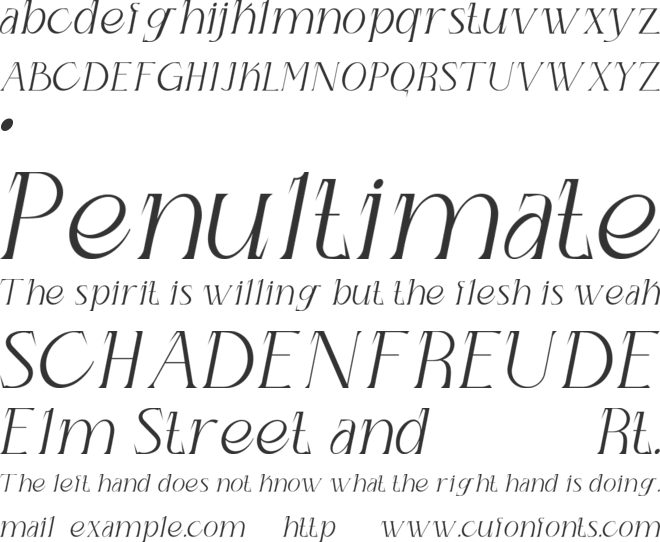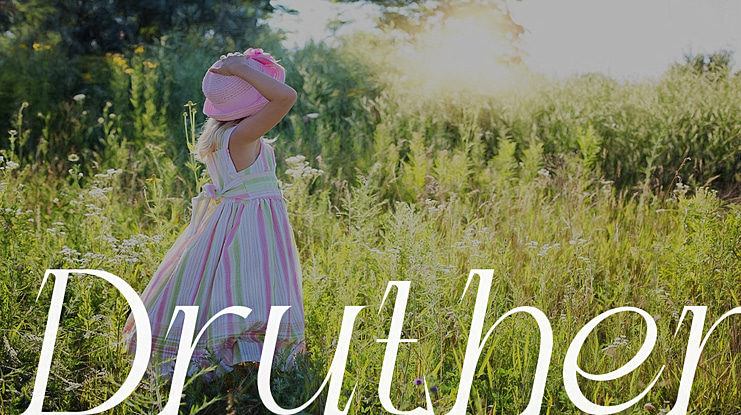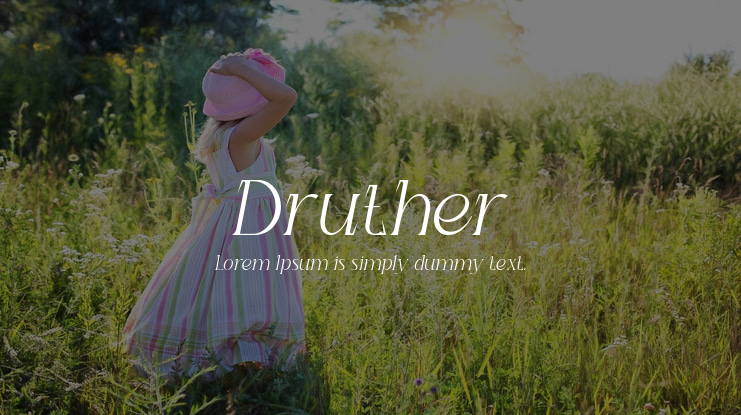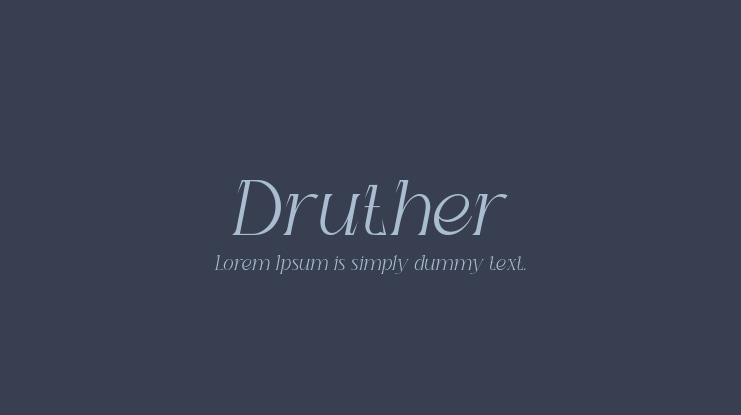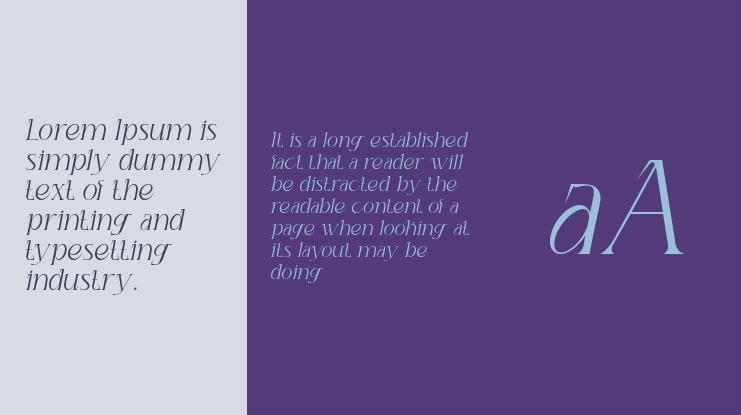
Druther Font
This is an elegant, thin lettered and distinct serif typeface crafted & designed by eztudio. It looks beautiful on a variety of designs requiring a personalized style, such as wedding invitations, thank you cards, weddings, greeting cards, logos and so on.